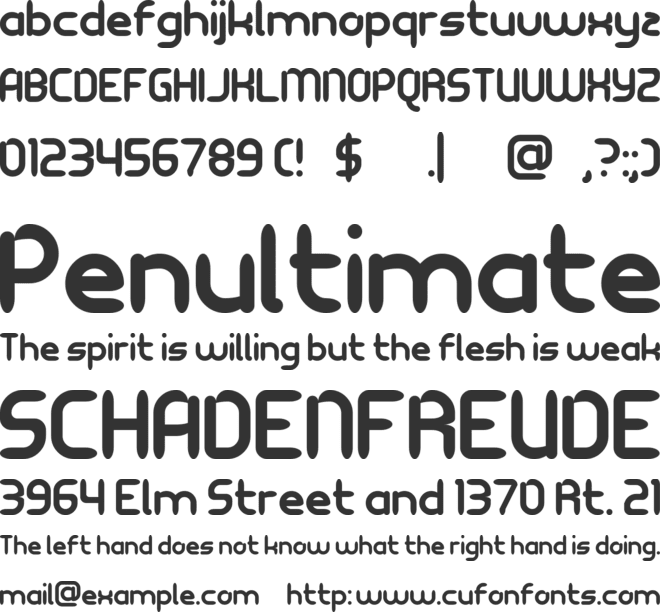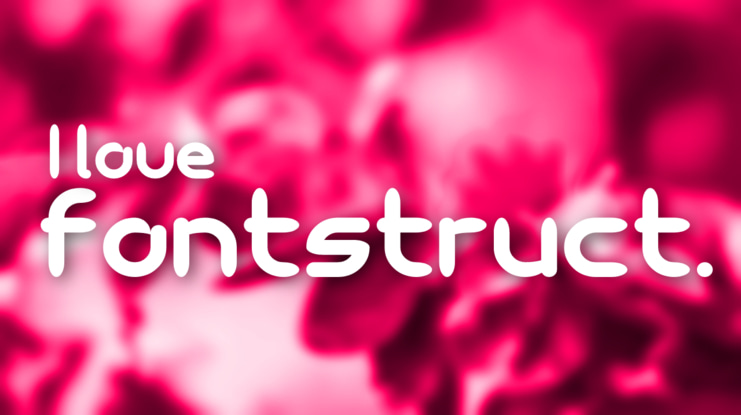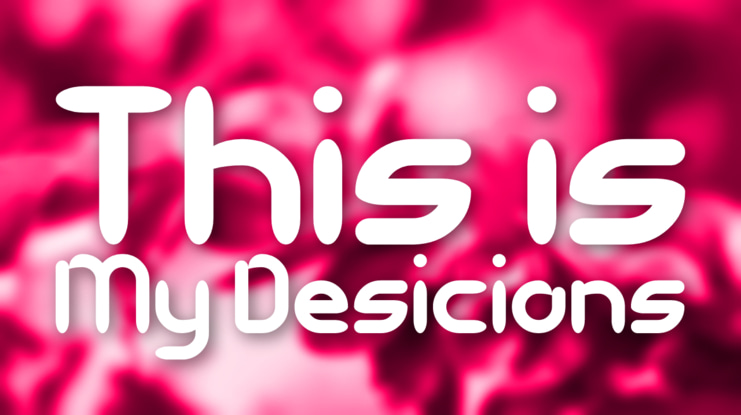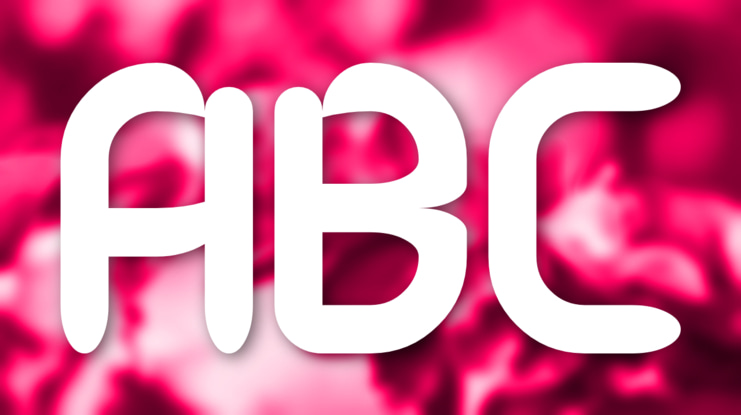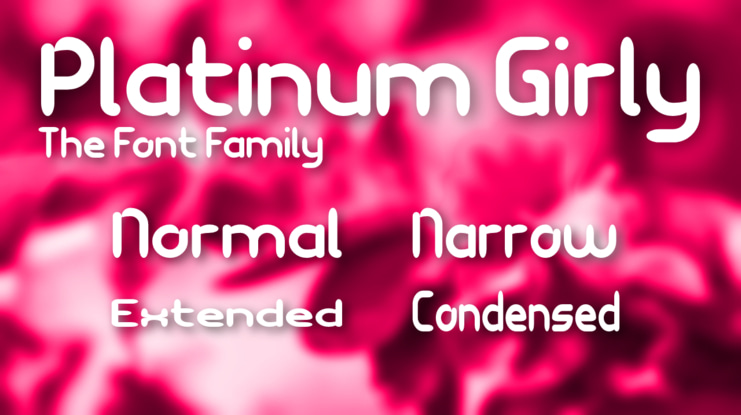
Platinum Girly Font
Plantium Girly is a modified brush and handwritten font family with a Marker-style experiment Made with Inktraps. This font was designed by VTOTFS2021.